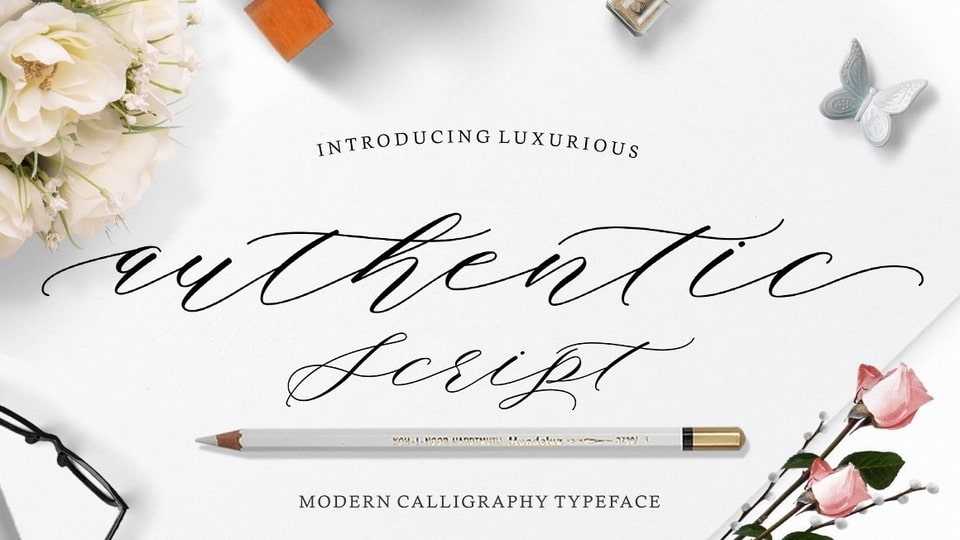
Download Authentic Script font, a modern calligraphy typeface, casual and pretty with swashes. Can be used for many purposes, such as title, signature, logo, wedding invitations and so on.